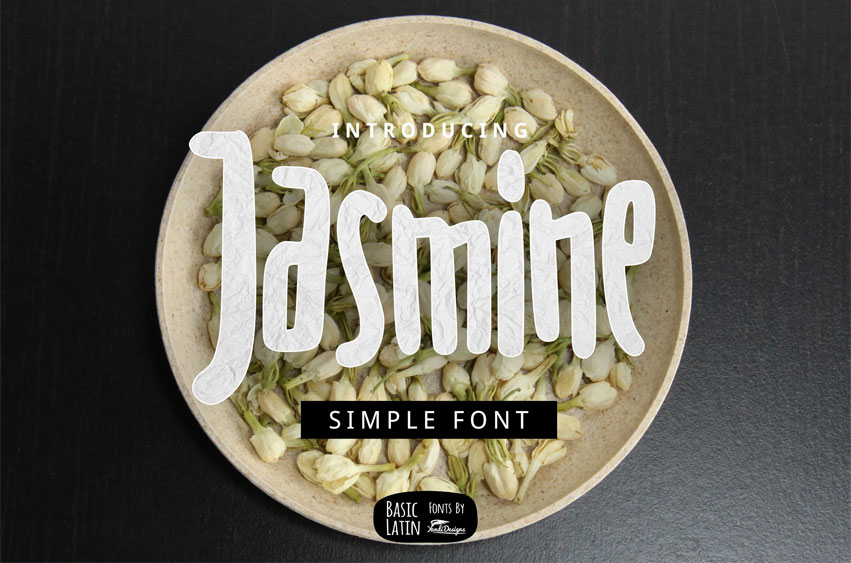
Jasmine Simple Font
Jasmine Simple Font is simple cute multipurpose handmade font , suitable for many project children book, quotes, logo , heading , title etc.